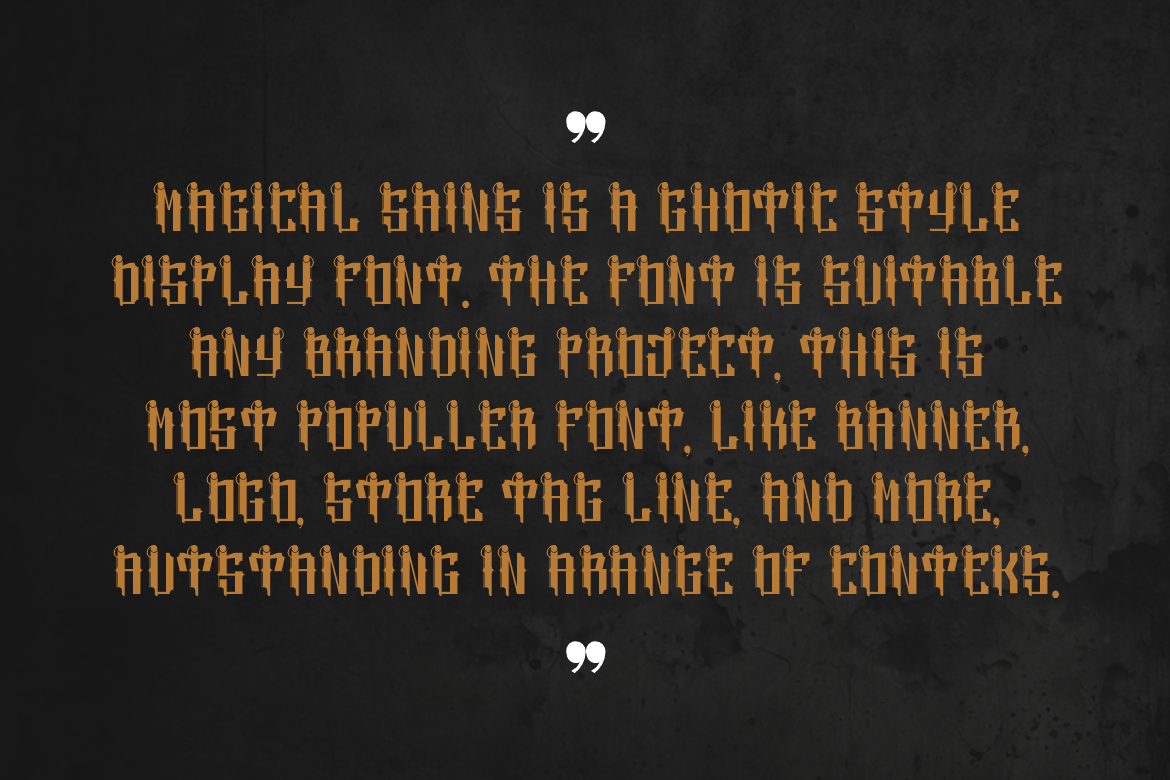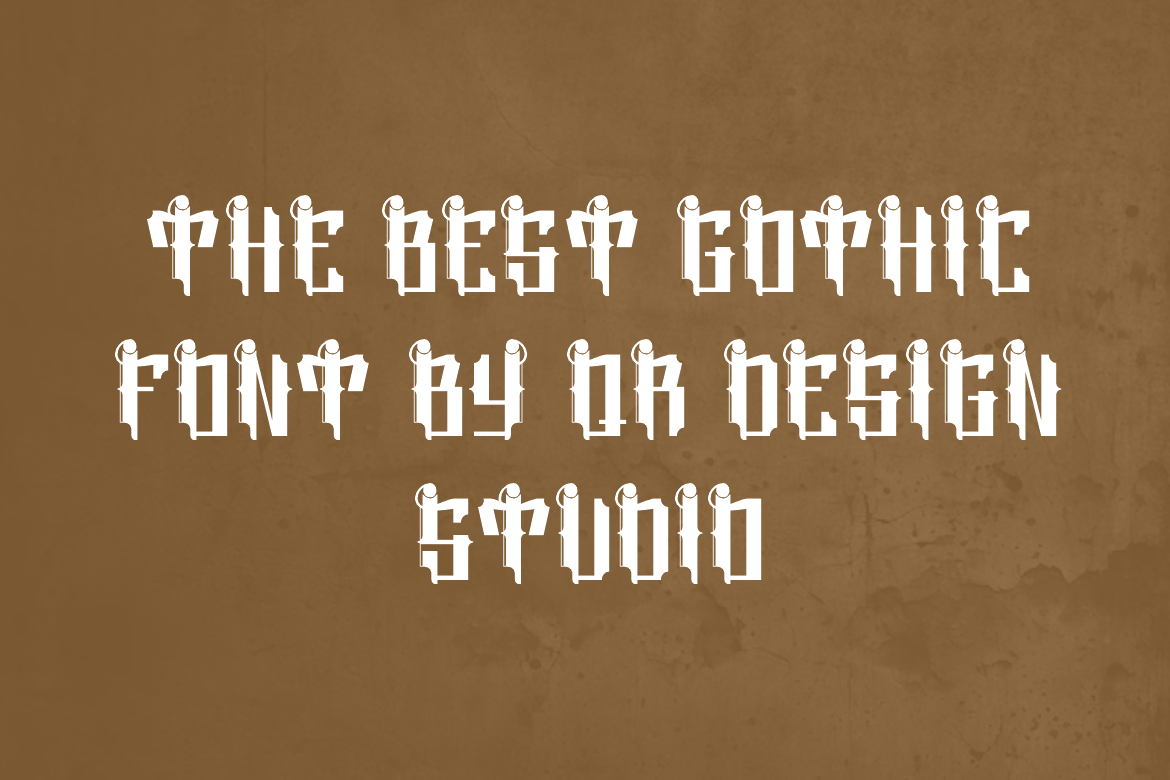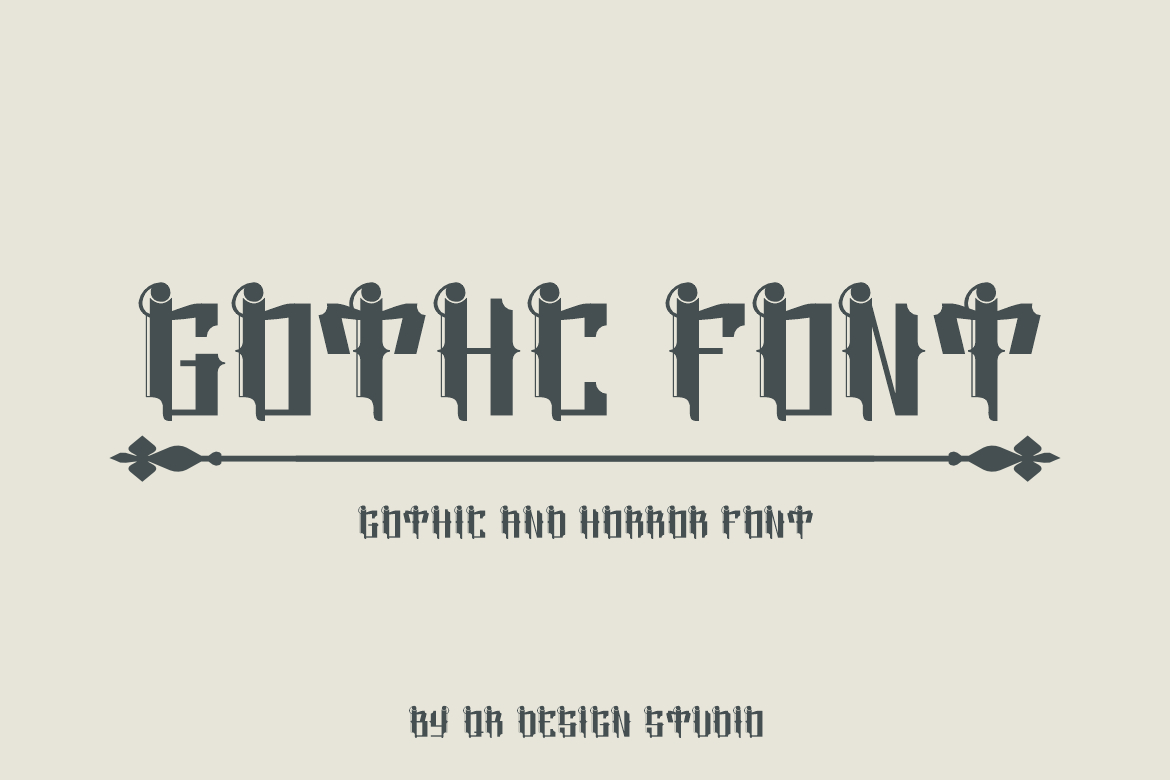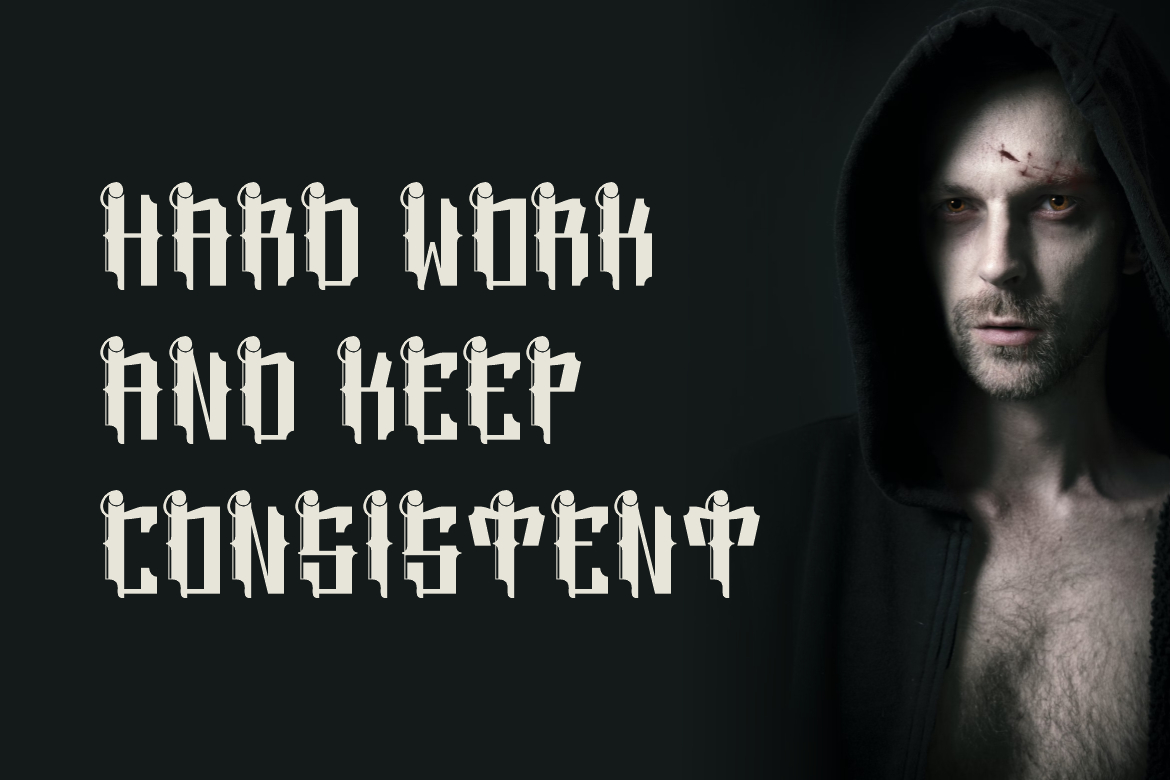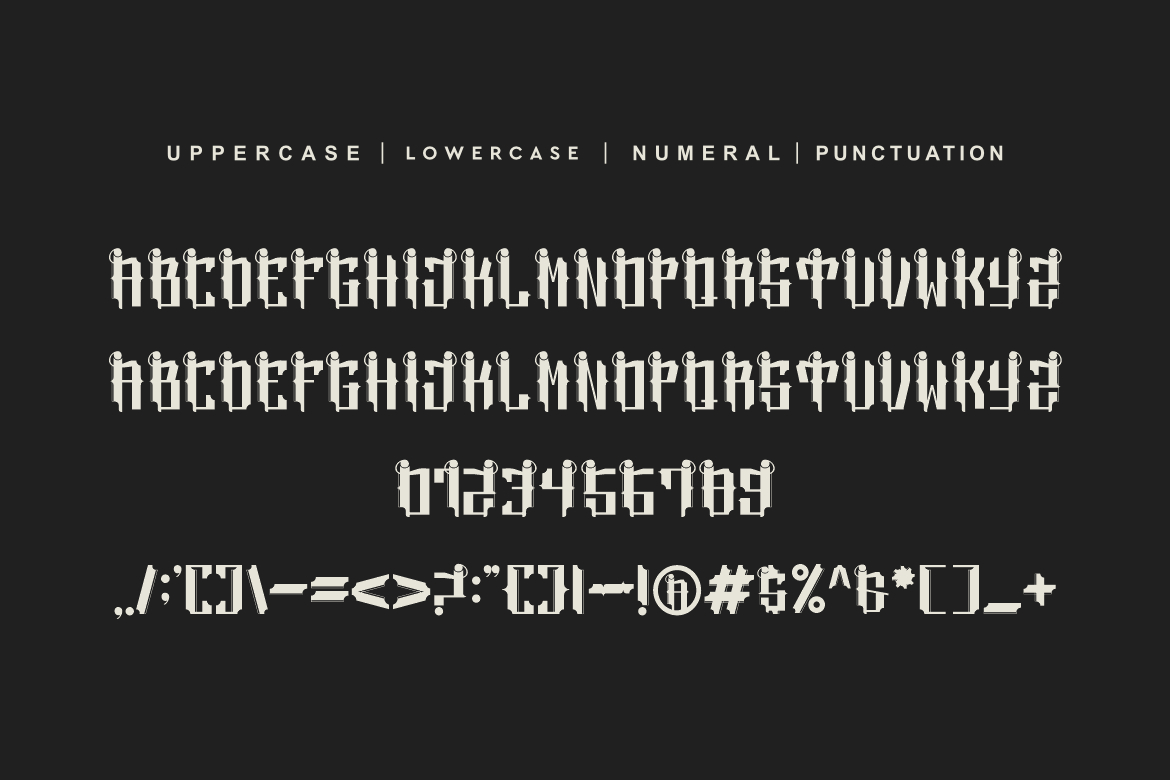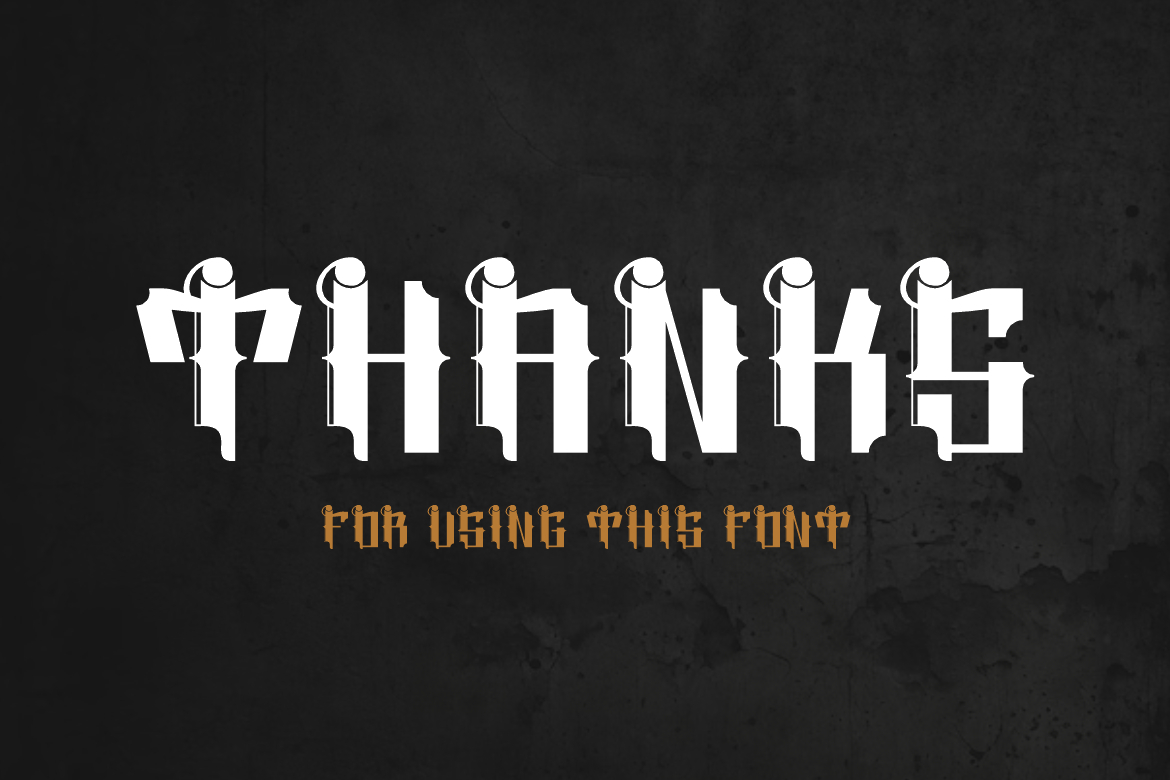
Magical Sains Font
Magical Sains Font is a bold and authentic display font.
The font is suitable for any branding project like logo, sport, and many more.